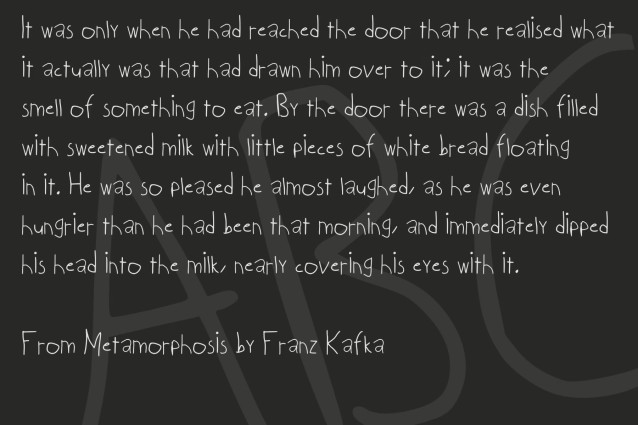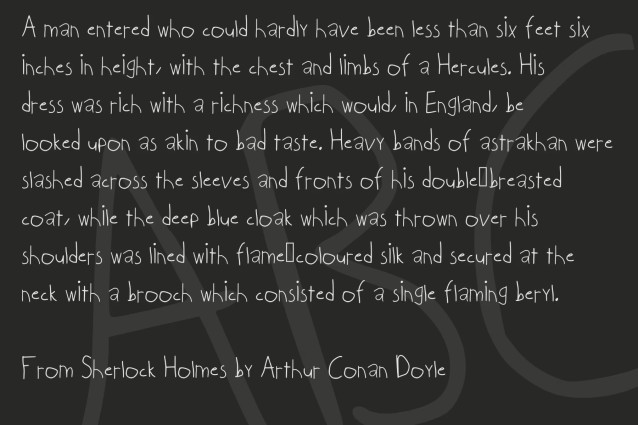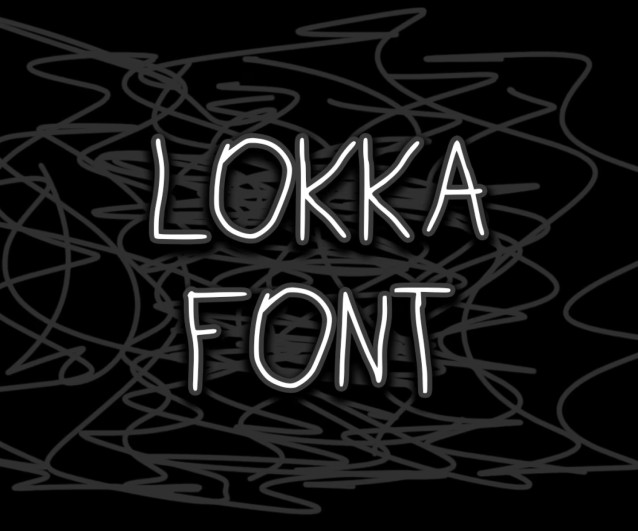
Lokka Handwritten Font A fancy, handwritten font by PerefectFonts. Ideal for logos, handwritten quotes, product packaging, header, poster, merchandise, social media & greeting cards.
Lokka Handwritten Font
| Classification: | Handwritten Fonts |